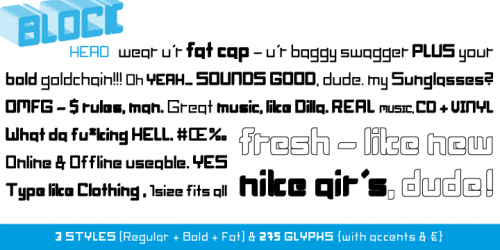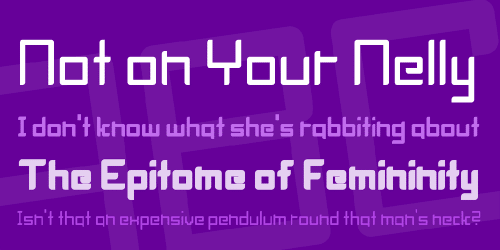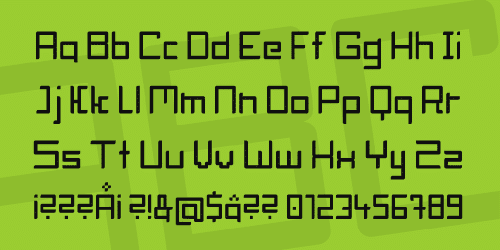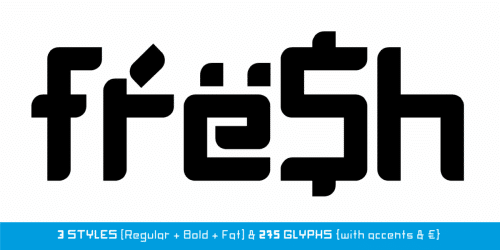
Blockhead Font
The half-round and smooth cha­rac­ter of the type­face looks sporty and fresh. The sans-serif mono­line letter-forms looks very modern, clean, fresh and fancy. From slim (regu­lar) ath­le­tes till heavy (fat) body­buil­der or foot­ball player.
• Designer: Manuel Viergutz